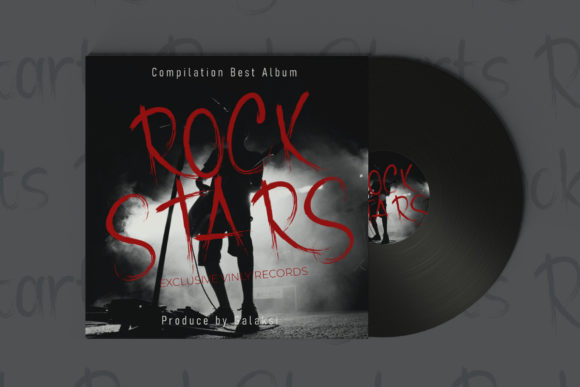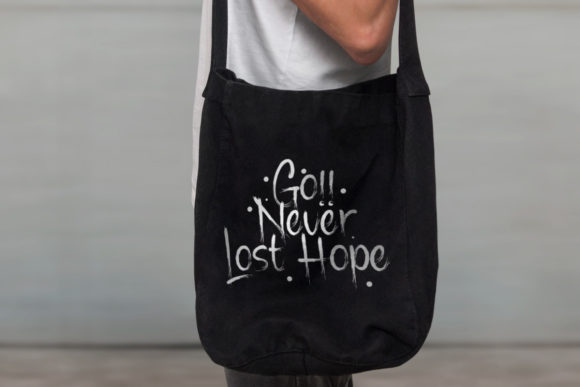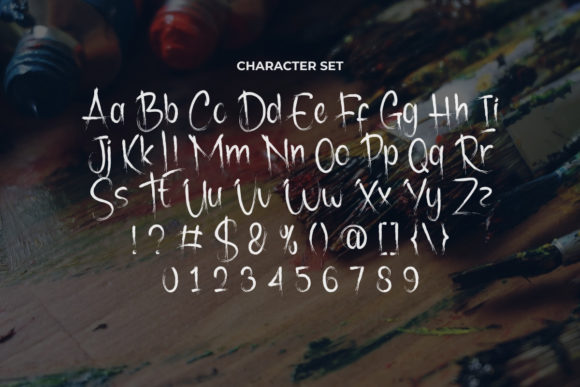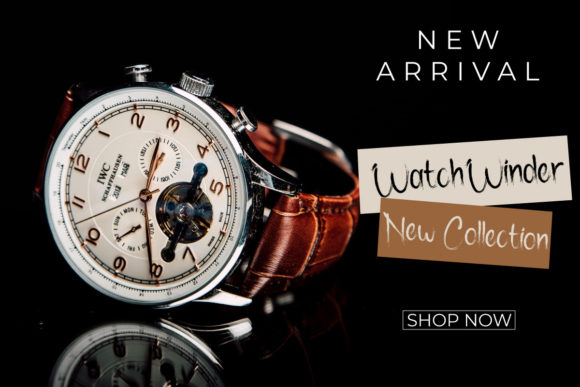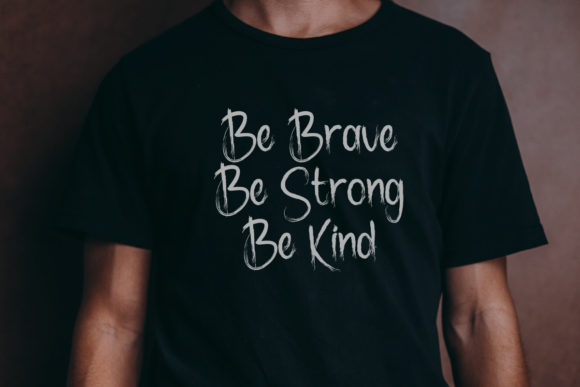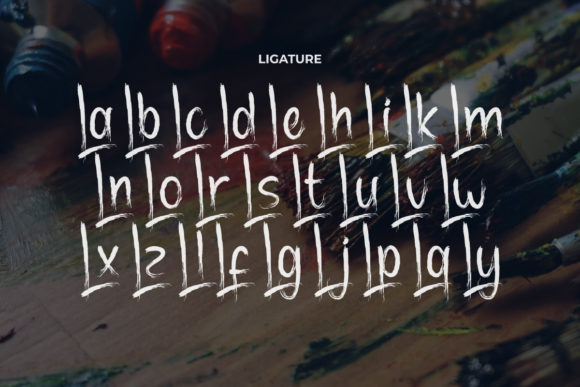
Adding a Touch of Edginess to Your Designs
Have you ever been in the middle of a creative project, staring at a blank canvas, trying to find the perfect font to bring your idea to life? You’ve browsed through countless options, but nothing seems to capture the essence of your vision. That’s when you stumble upon Dry Paint Font, a cool, brushed display font that adds a touch of edginess to your designs.
Dry Paint Font is more than just a font – it’s a tool that can elevate your creations to the next level. With its PUA encoding, you can access a wide range of amazing glyphs and ligatures, giving you endless possibilities to experiment and push the boundaries of your art.
Dry Paint Font Key Features
- Font Family: Dry Paint Font offers a unique and creative font family with 6 styles (Thin, Light, Regular, Medium, Bold, and Black) to cater to various design needs.
- Character Set: The font includes a wide range of characters, including uppercase and lowercase letters, numbers, punctuation marks, and special characters, making it suitable for various design applications.
- Unique Characteristics: The font’s unique brush-stroke design and distressed texture give it a distinctive, hand-painted look that adds a touch of personality to any design project.
Dry Paint Font Review
Overall, I think Dry Paint Font is a unique and interesting font. Here are some things that work well:
- ✨ The brush stroke effect is really cool and adds a lot of character to the font. It’s perfect for creative projects or designs that need a bit of edge.
- ✨ The font is highly customizable, which is great for designers who like to experiment with different styles and looks.
- ✨ The font is also quite legible, even in smaller sizes, which is important for designs where text is a key element.
- ⚠️ The font can be a bit overwhelming if used extensively. The brush stroke effect can start to feel repetitive and tiresome to look at.
- ⚠️ The font may not be suitable for designs that require a lot of precision or technical text, as the brush stroke effect can make it difficult to read.
Overall, I think Dry Paint Font is a great addition to any designer’s toolkit, but it’s not without its limitations. With careful use and consideration, it can add a unique and interesting touch to designs.
Tips for Getting the Most Out of Dry Paint Font
To get the most out of the Dry Paint Font, use it for:
- Typography-based designs, such as quotes and posters.
- Adding a distressed or vintage touch to your designs.
- Creating a bold and eye-catching headline.
The Dry Paint Font is commonly used for:
- Quote designs.
- Poster designs.
- Headline designs.
Alternatives to Dry Paint Font for Designers
Great Vibes Font is a modern, elegant script font perfect for adding a touch of sophistication to designs. It’s ideal for use in invitations, wedding designs, and other creative projects where a beautiful, flowing script is needed.
Great Vibes Font offers a similar elegant feel to Dry Paint Font, but with a more refined and polished look. While Dry Paint Font has a more distressed, hand-painted feel, Great Vibes Font is sleeker and more modern.
Carolyna Pro Font is a stylish, high-end script font designed for luxury brands and high-end designs. It’s perfect for use in fashion, beauty, and luxury goods packaging, as well as in high-end marketing materials.